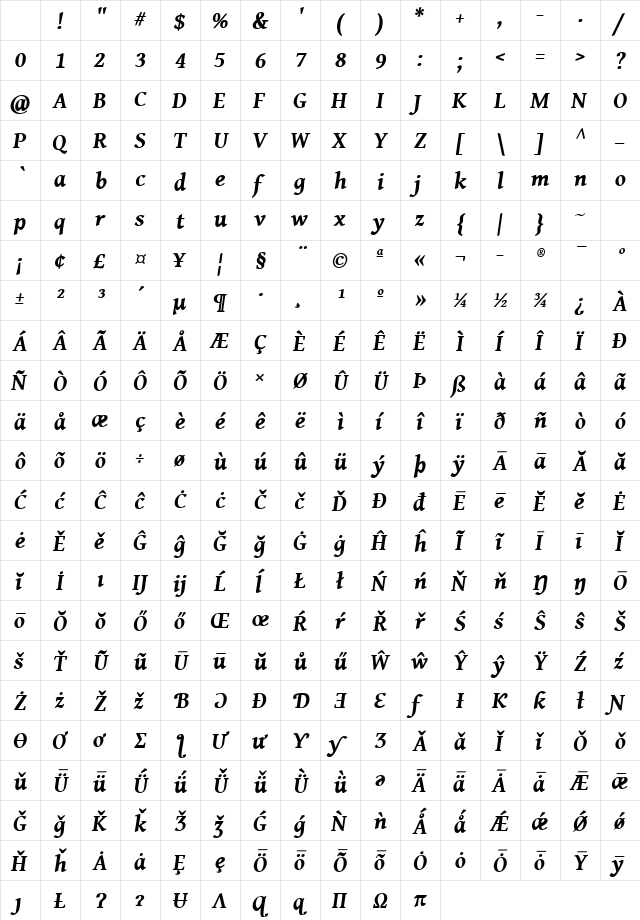
Complete Gentium Book Basic Bold Italic glyph index. Displaying only characters natively supported by Gentium Book Basic Bold Italic font.
Gentium Book Basic is a composed and adaptable typeface that performs quietly and consistently across a wide range of design contexts. The slanted form adds forward momentum and visual energy. Its bold stroke weight gives it real presence on the page.
Pro Tip: Use Gentium Book Basic for emphasis, pull quotes, and subheadings where its slanted energy can add rhythm to the layout.